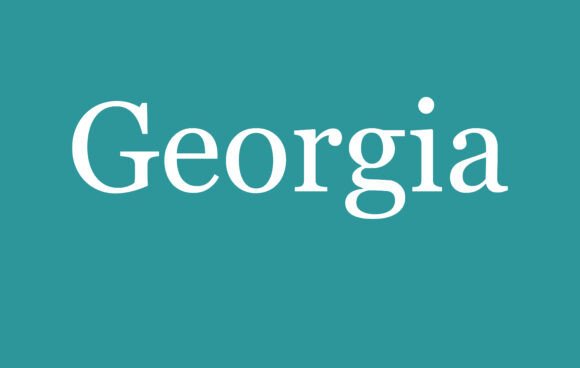
If you’ve spent time exploring fonts that blend tradition with modern functionality, you’ve likely encountered Georgia. This elegant serif typeface, designed by Matthew Carter in 1993, has become a staple of web design, publishing, and branding. Its graceful curves, generous letterforms, and superior readability have made it a go-to choice for designers worldwide.
Why Designers Love Georgia Font
What makes Georgia so enduring in a world flooded with typefaces? Let’s look at a few reasons why designers, bloggers, and developers still reach for Georgia decades after its debut:
✨ Exceptional readability
Georgia was crafted specifically to look beautiful and clear on low-resolution screens. Even today, it maintains superb legibility on modern displays and printed materials alike.
🎨 Timeless elegance
With its balanced proportions and subtle serifs, Georgia has a refined, professional appearance that suits everything from corporate reports to fashion blogs.
📰 Versatile use cases
Ideal for body text in long-form content, Georgia also shines in headings, pull quotes, and logos where a classic yet friendly tone is desired.
🌐 Widespread availability
Georgia comes pre-installed on many operating systems, making it a safe choice for web design when you need consistent rendering across platforms.
Creative Uses for Georgia Font
Because of its mix of tradition and modern clarity, Georgia is perfect for:
✅ Blogs and editorial websites
Georgia gives articles and blog posts a polished, book-like feel that readers trust.
✅ Professional branding
Pair Georgia with a clean sans-serif (like Helvetica or Open Sans) to create sophisticated logos or brand materials.
✅ Printed materials
Business cards, brochures, and magazines benefit from Georgia’s legibility and classic touch.
✅ Digital documents
Georgia lends authority to resumes, reports, and e-books, keeping them formal yet friendly.
✅ Invitations and certificates
Its elegant letterforms make Georgia ideal for wedding invitations, certificates, and event programs.
Final Thoughts: Add Timeless Style with Georgia
Georgia is proof that good design never goes out of style. Its blend of readability, elegance, and screen optimization makes it a fantastic choice whether you’re building a blog, designing business cards, or creating editorial layouts.